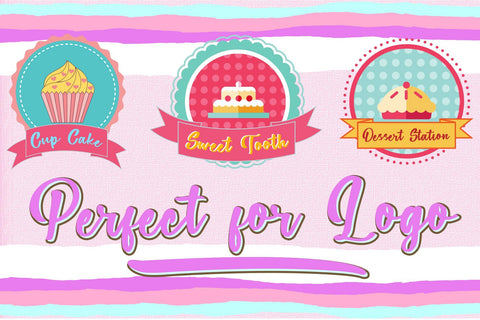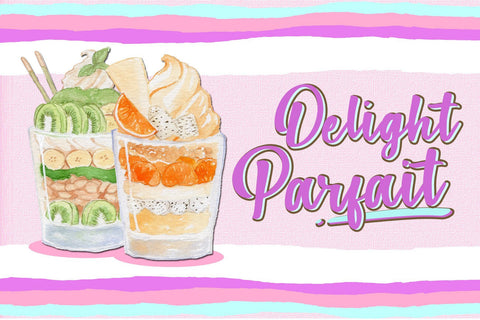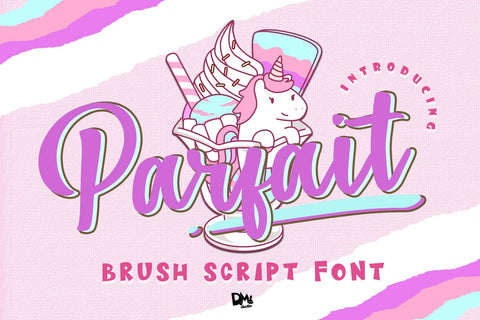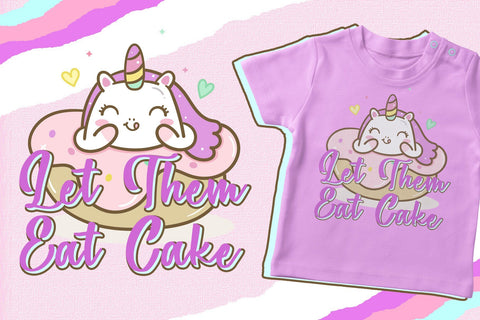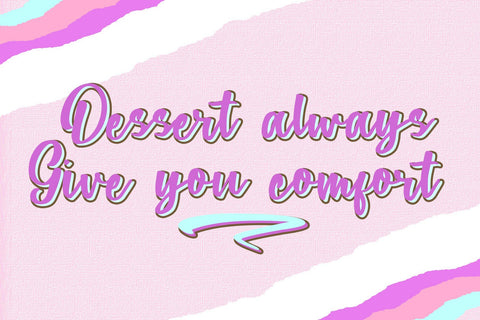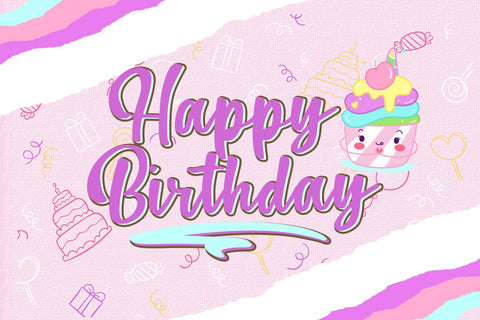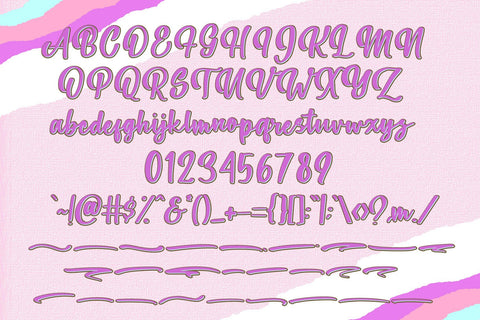
Parfait - Brush Script Font
Introducing : Parfait Brush Script Font!
Parfait is a sweet, bold and fun brush script font, great for your card, party invitation, brand, logo, t-shirt, souvenir and much more!
Comes with extra 26 underline swashes and FREE Text Effect for PSD!
Feature :
- lowercase
- numeric
- multilingual support
- Extra Swash line